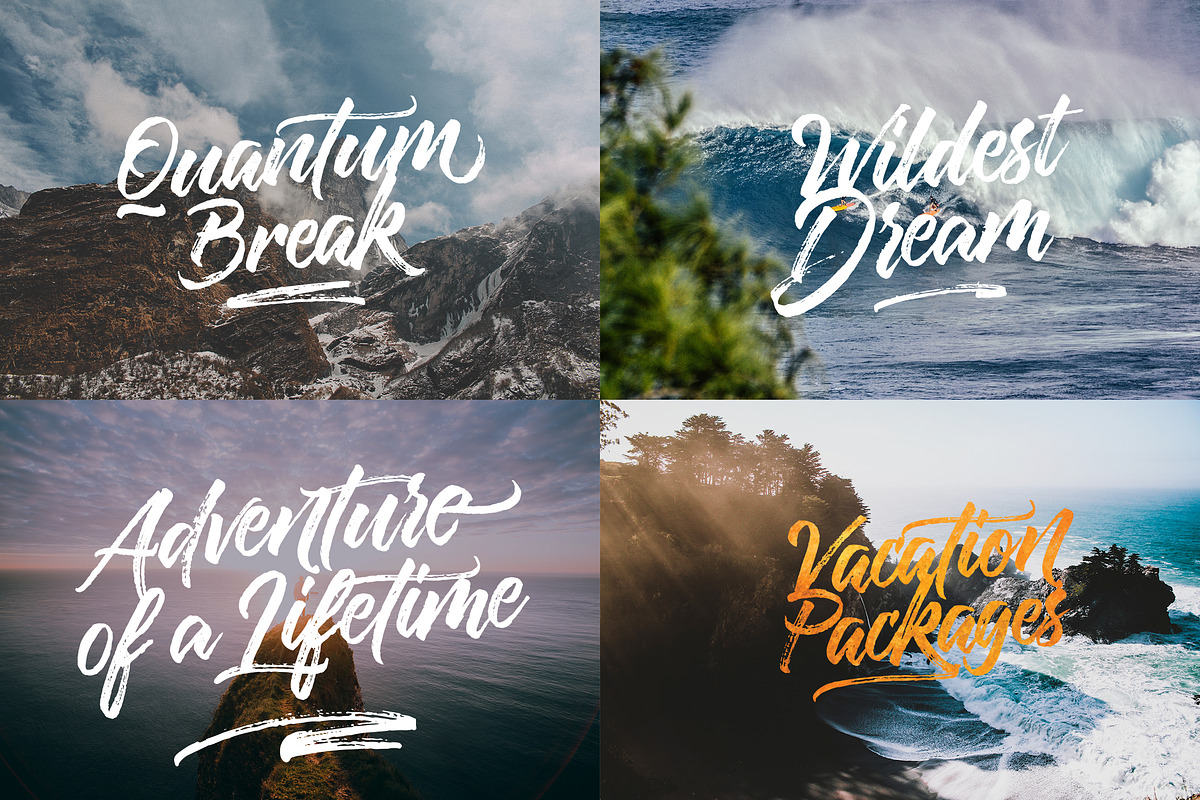
Twilight Script
Twilight Script is a dry handbrushed font, designed to combine perfectly and allow you to create stunning hand-lettering quickly and easily. Ideal for logos, handwritten quotes, product packaging, header, poster, merchandise, social media & greeting cards.
Twilight Script comes with upper and lowercase characters, large set of punctuation glyphs, numerals, and supports international languages. Stylistic alternates for several key lower case characters are also available.